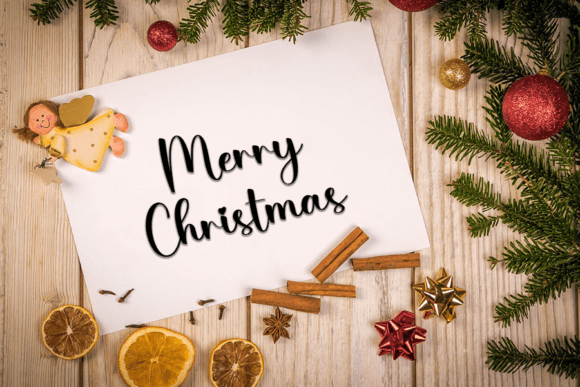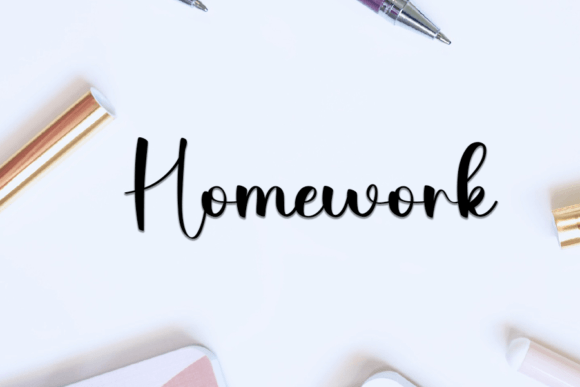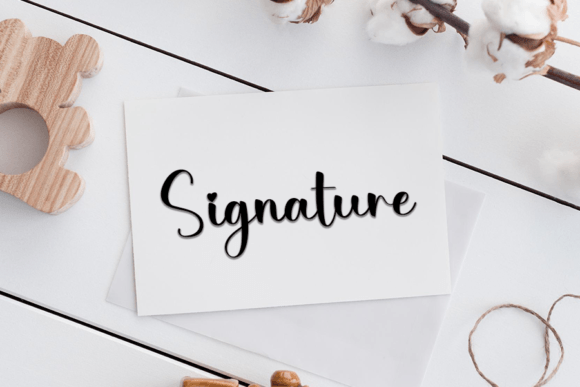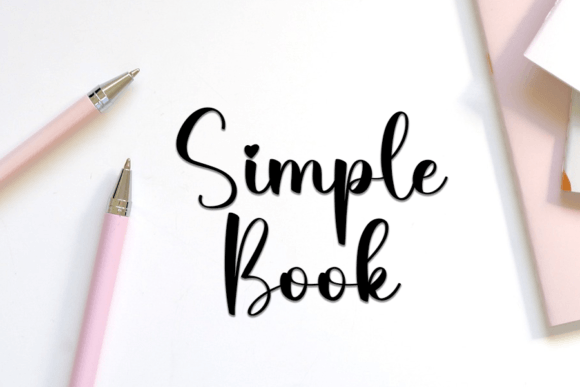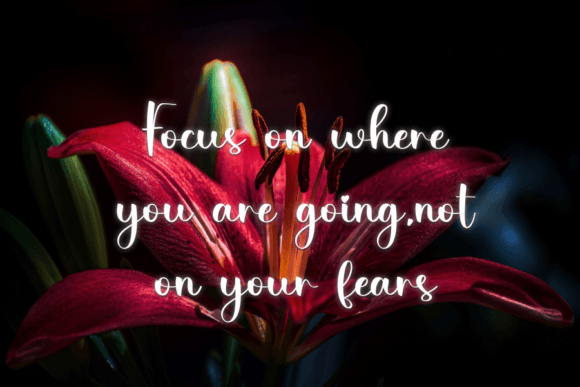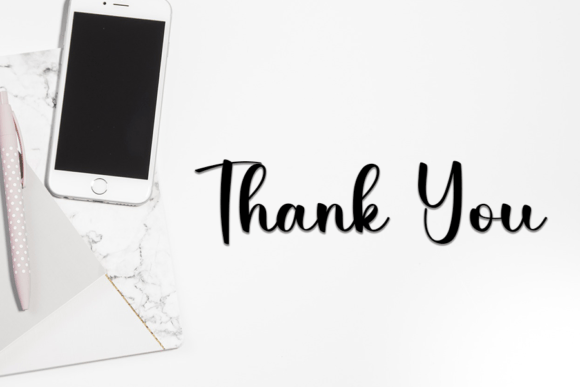
The Chilli Font: A Bold and Beautiful Script to Spice Up Your Designs
I still remember the time I was working on a project for a client who wanted a bold and elegant font to make their brand stand out. I scoured through my font library, but nothing seemed to fit the bill. That’s when I stumbled upon the Chilli font, and it instantly became my go-to. With its beautiful script and bold personality, it was the perfect fit for my client’s brand. In this article, I’ll share my love for the Chilli font, its features, and how to make the most of it in your designs.
An Honest Review of Chilli Font
What I Love About Chilli Font ✨
- 💥 Bold and eye-catching: The Chilli font is perfect for making a statement in your designs. Its bold strokes and beautiful script make it a great choice for headings, titles, and emphasis text.
- ✅ Versatile: Whether you’re designing for crafts, digital media, presentations, or greeting cards, the Chilli font adapts seamlessly to different contexts.
- 🎨 Highly customizable: With its range of OpenType features, glyphs, and stylistic alternates, you can experiment with different variations to make the font your own.
- ⚠️ Limited use in body text: While the Chilli font is amazing for headings and titles, it may not be the best choice for body text due to its bold nature.
- 🤔 Requires some practice to master: With its range of features and alternates, it may take some time to get familiar with the Chilli font and make the most of it.
The Backstory of Chilli Font
The Chilli font was designed by a team of typographers who wanted to create a bold and beautiful script font that would inspire creativity. With its stunning design and range of features, it’s no wonder that Chilli has become a favorite among designers and crafters alike.
Q: What is the Chilli font best used for?
A: The Chilli font is perfect for designs that require a bold and eye-catching font, such as headings, titles, and emphasis text.
Q: Is the Chilli font available in different languages?
A: The Chilli font may have limited language support, so it’s best to check with the font designer or a reliable font source for more information.